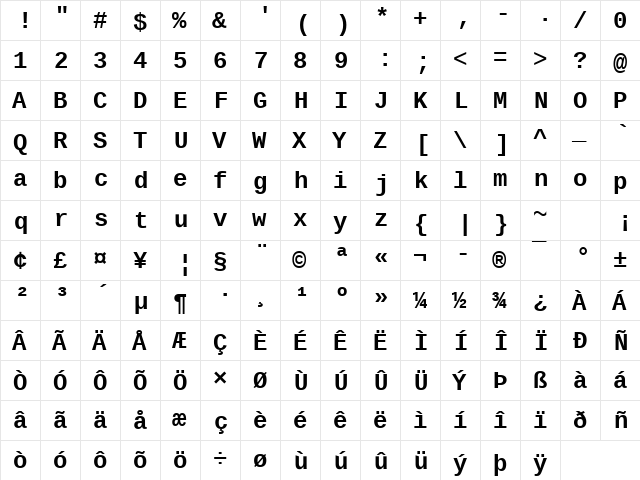
Liberation Mono Bold
| Foundry | Ascender Corporation |
| Designer | Steve Matteson |
Design Context for Liberation Mono Typeface
Liberation Mono uses fixed-width spacing throughout, giving it the structured, systematic character associated with coding environments and technical documentation. Its bold stroke weight gives it real presence on the page.
Pro Tip: Pair Liberation Mono with a proportional sans for UI contexts where code-style labels and regular body copy need to coexist.